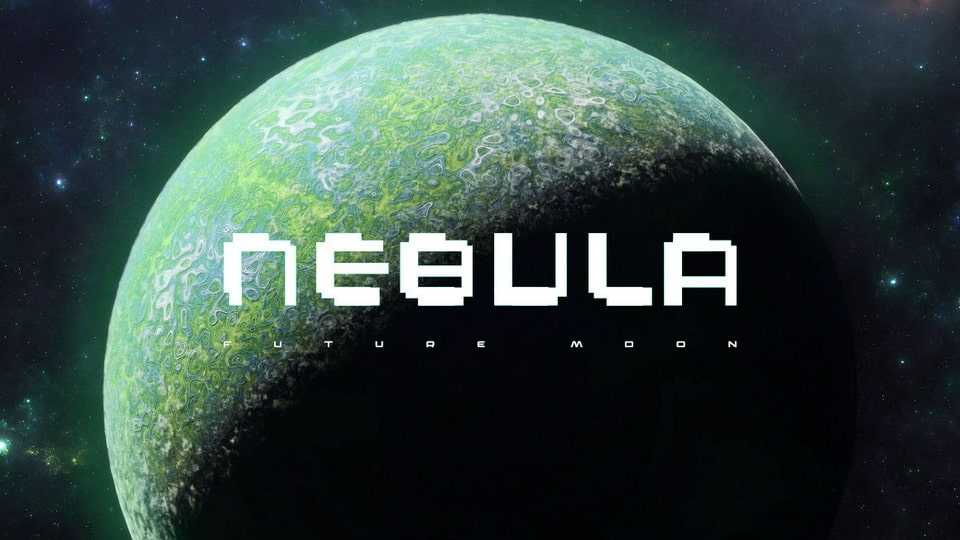
Download Aeogo Pixellated font, a futuristic display typeface that embodies the essence of technology and artificial intelligence. Aeogo Pixellated font is crafted with sharp edges and precise pixels, capturing the sleek and futuristic aesthetic of modern digital interfaces.